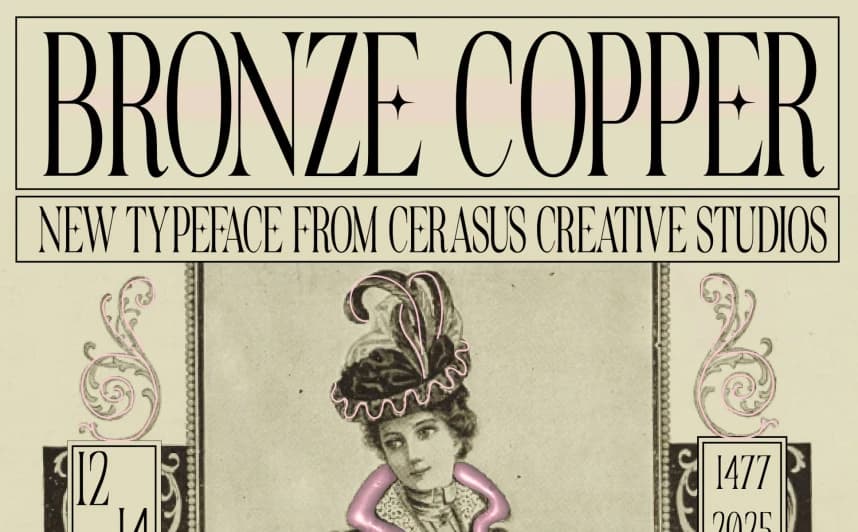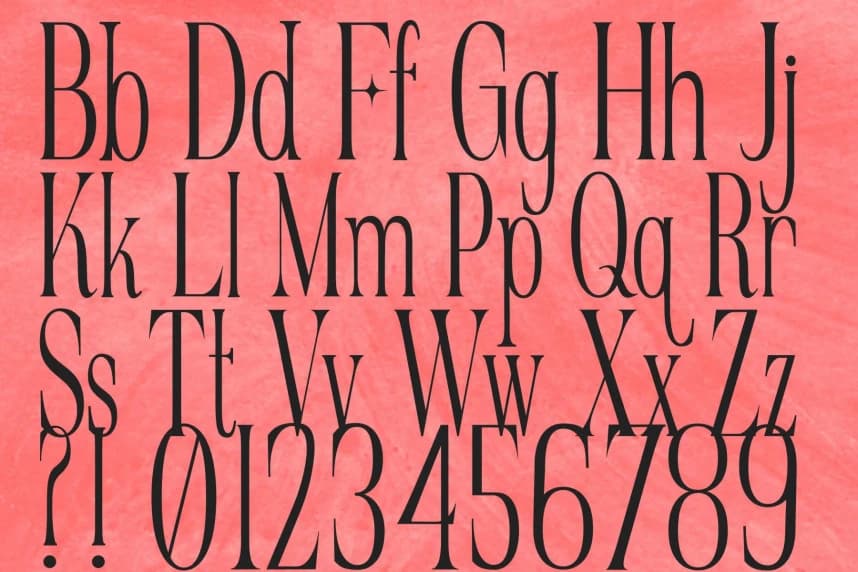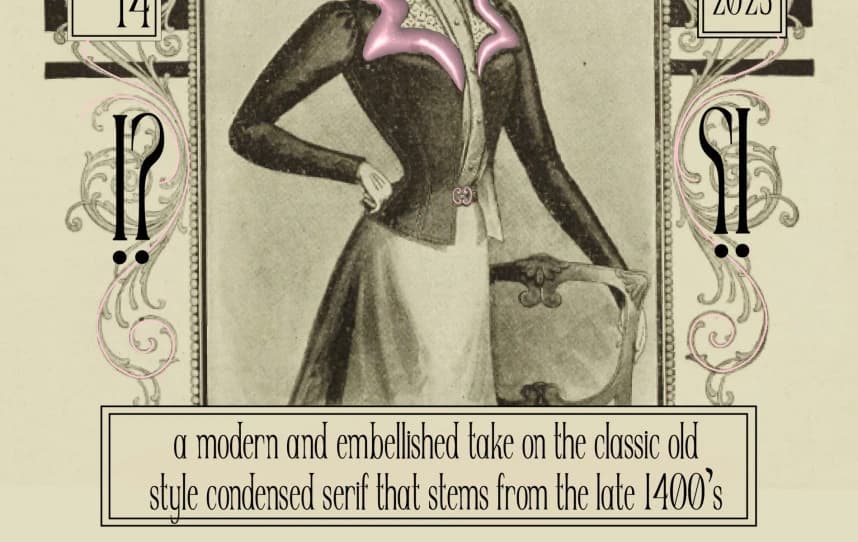
Bronze Copper Font
Bronze Copper Font is a modern and embellished interpretation of the classic old-style condensed serif font. With its refined vintage character, elegant proportions, and decorative details, this typeface brings a timeless yet sophisticated feel to any design.